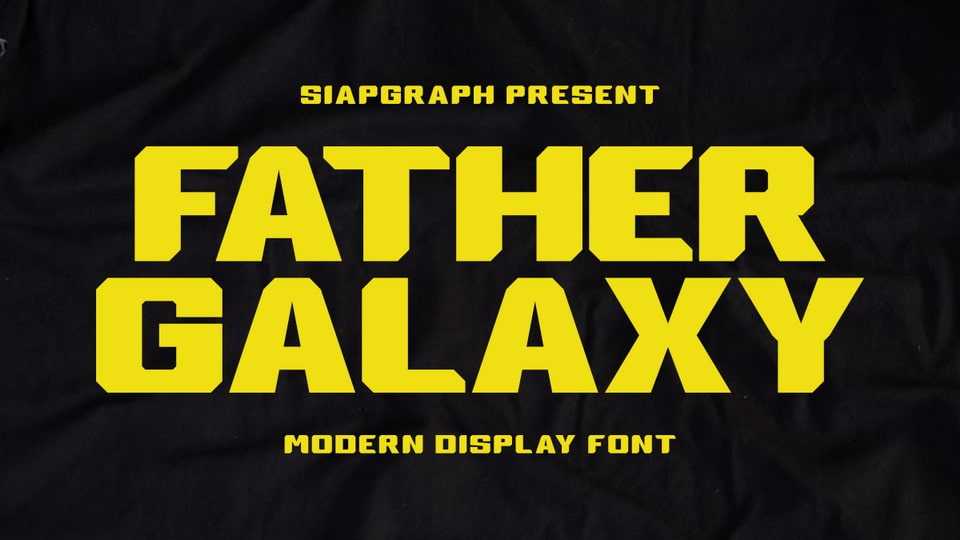
Download Father Galaxy font, a bold and futuristic display typeface inspired by space, sci-fi, and galactic adventures with sharp angles, geometric shapes, and a strong presence.